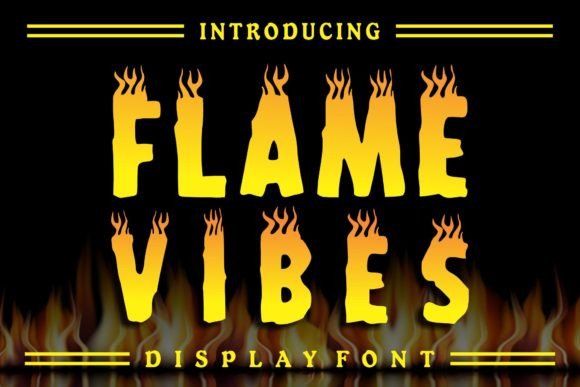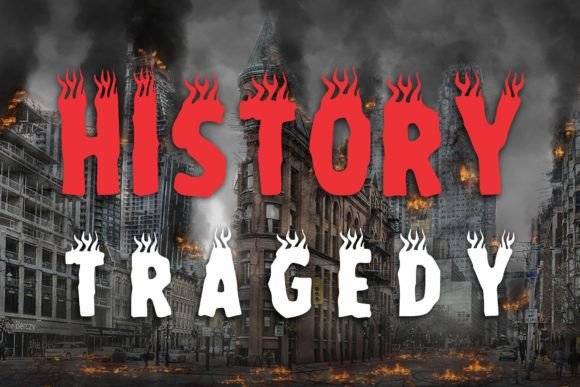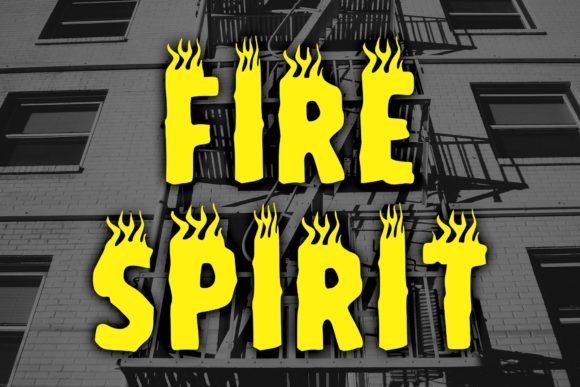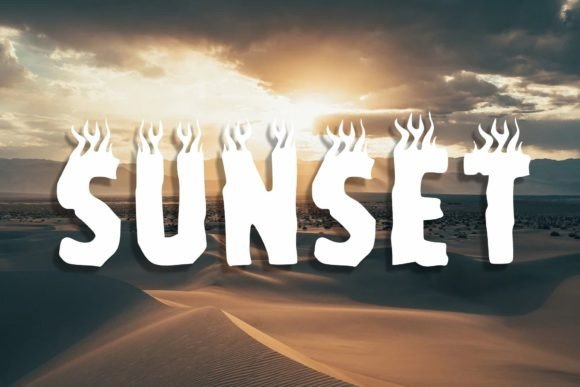
Flame Vibes Font: A Bold & Fiery Display Font for Posters
About the Flame Vibes Font
The wait is over! The incredible Flame Vibes Font is now available for your design toolkit. Flame Vibes a decorative font inspired by fire, it will make any of your creative designs look more attractive and inspirational. Add it to your projects and notice how it makes them stand out!
Flame Vibes’ bold, energetic forms are ideally suited for headlines, short taglines, and logos where a dramatic visual impact is desired. It excels in branding for entertainment, music, or lifestyle products that convey a fiery, passionate spirit. Avoid using it for body text or lengthy passages; its decorative nature compromises readability at smaller sizes.
Consider pairing Flame Vibes with a clean sans-serif like Montserrat for a modern contrast, or a classic serif like Garamond for a touch of refined elegance. For a more playful feel, a rounded sans-serif such as Bebas Neue could work well. These pairings provide visual balance, allowing Flame Vibes to shine while maintaining overall design clarity.
The font’s personality is undeniably bold and expressive, lending itself to projects requiring a strong visual statement. Its fiery character makes it less suitable for applications demanding subtlety or minimalism.